Are you tired of email signatures that feel cold, corporate, or downright boring? We’ve been there too. Whether you’re sending newsletters, client updates, or just signing off in style, a well-chosen font can elevate your emails with personality, elegance, or a touch of creativity.
From handwritten scripts to sleek monoline designs, signature fonts offer a personal yet professional touch that’s perfect for digital communication. Whether you're looking to reflect luxury, creativity, friendliness, or minimalism, there’s a signature-style font that fits your brand.
To help you find the right one, we’ve explored hundreds of options—both free and paid—and narrowed it down to the top 10 signature fonts that look great in email footers and sign-offs.
A signature font mimics the flow and style of natural handwriting, often resembling a stylized signature. It’s usually a cursive, script, or monoline typeface, and it’s popular for email sign-offs, business cards, and personal branding.
These fonts bring a human touch to your emails—perfect for making your communication feel warm, authentic, and personal.
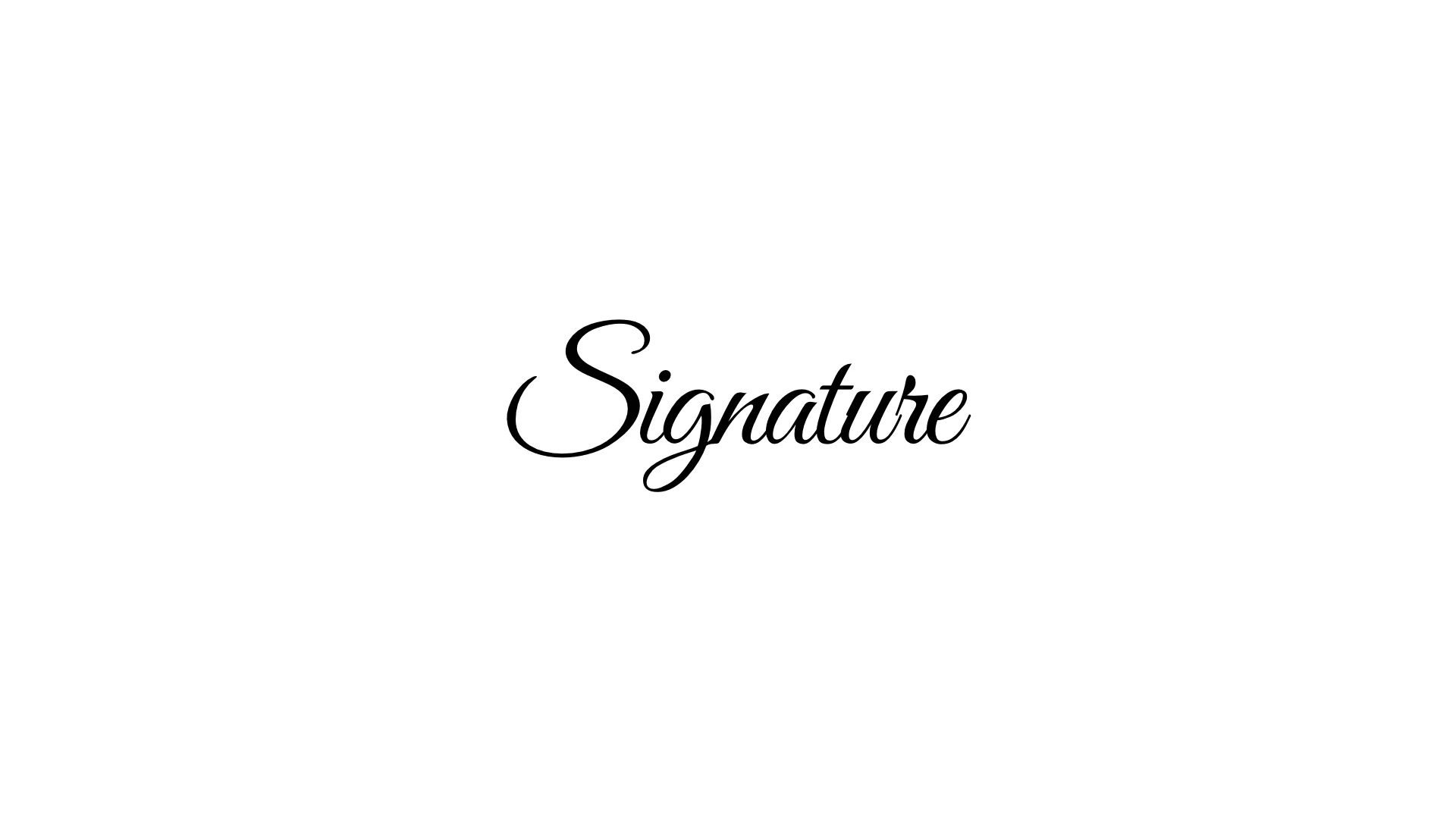
Elegant and flowing, Great Vibes is a formal script font with sweeping curves and a refined feel. It’s well-balanced and works beautifully in email signatures thanks to its clarity and graceful appearance.
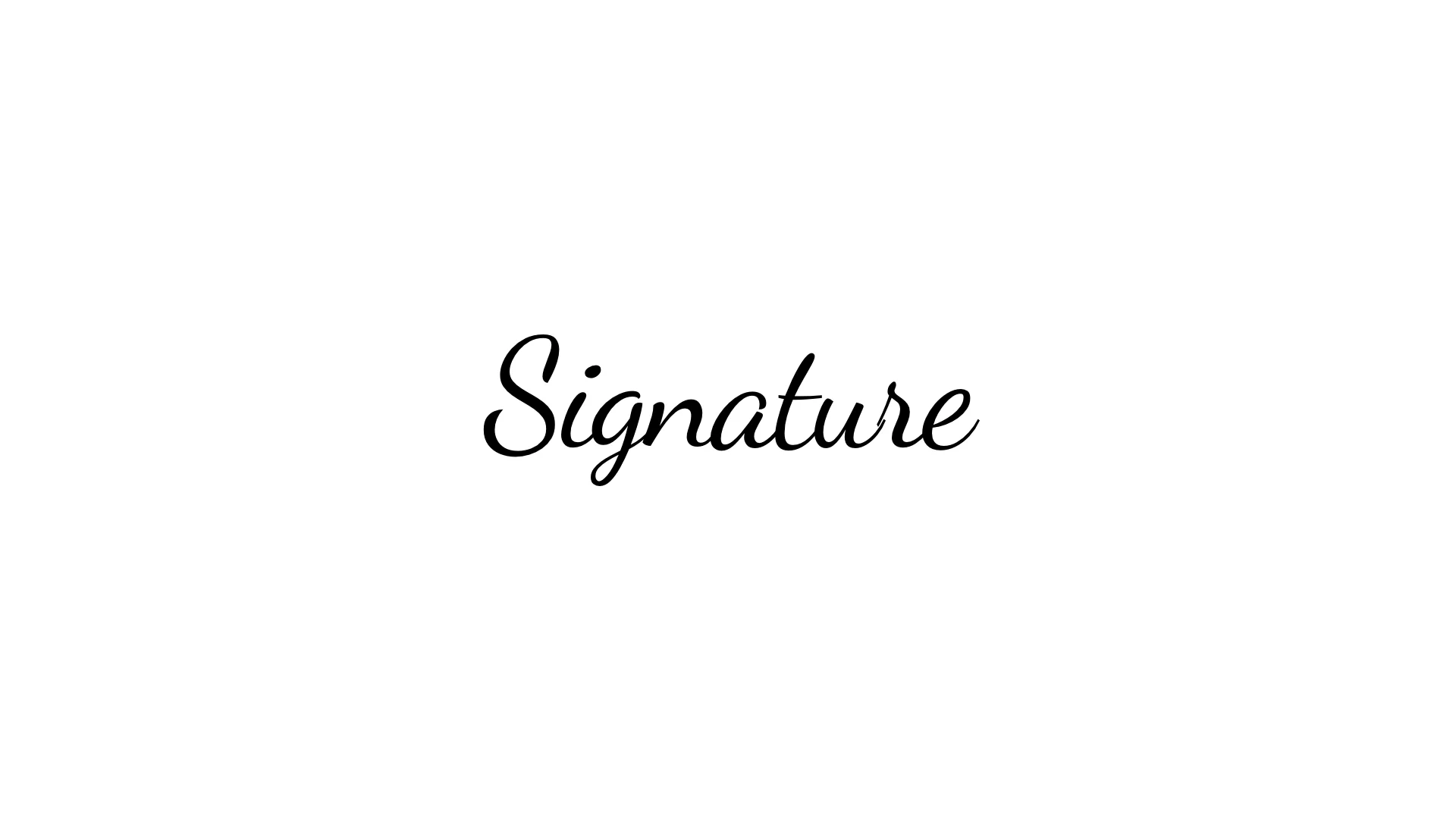
Dancing Script brings energy to your signature with its rounded forms and casual rhythm. Inspired by popular scripts of the 1950s, it feels nostalgic and expressive, without being too bold.
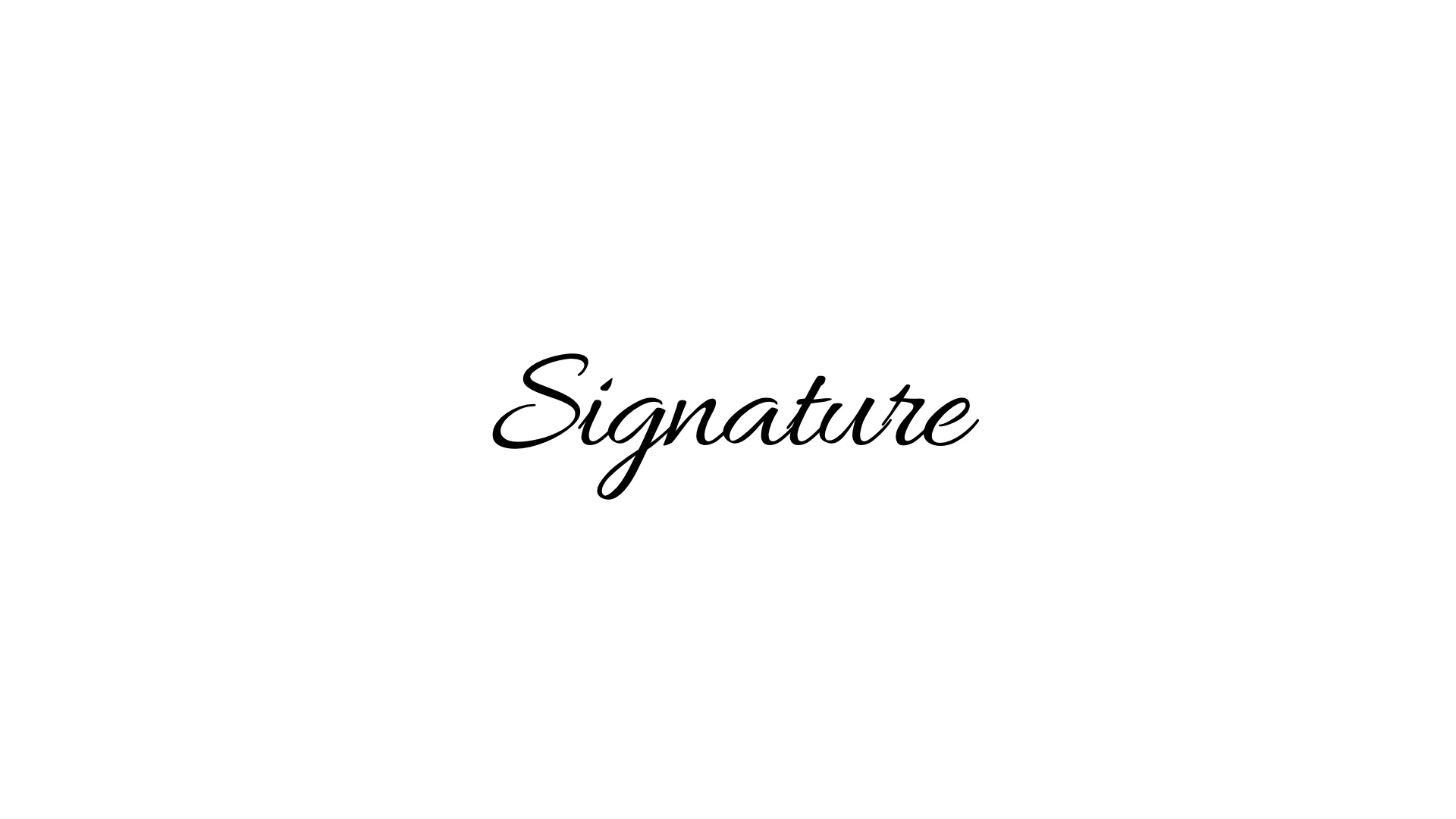
Allura offers a more delicate script with subtle, sweeping strokes. It’s clean and light, giving your email signature a calm and sophisticated look.
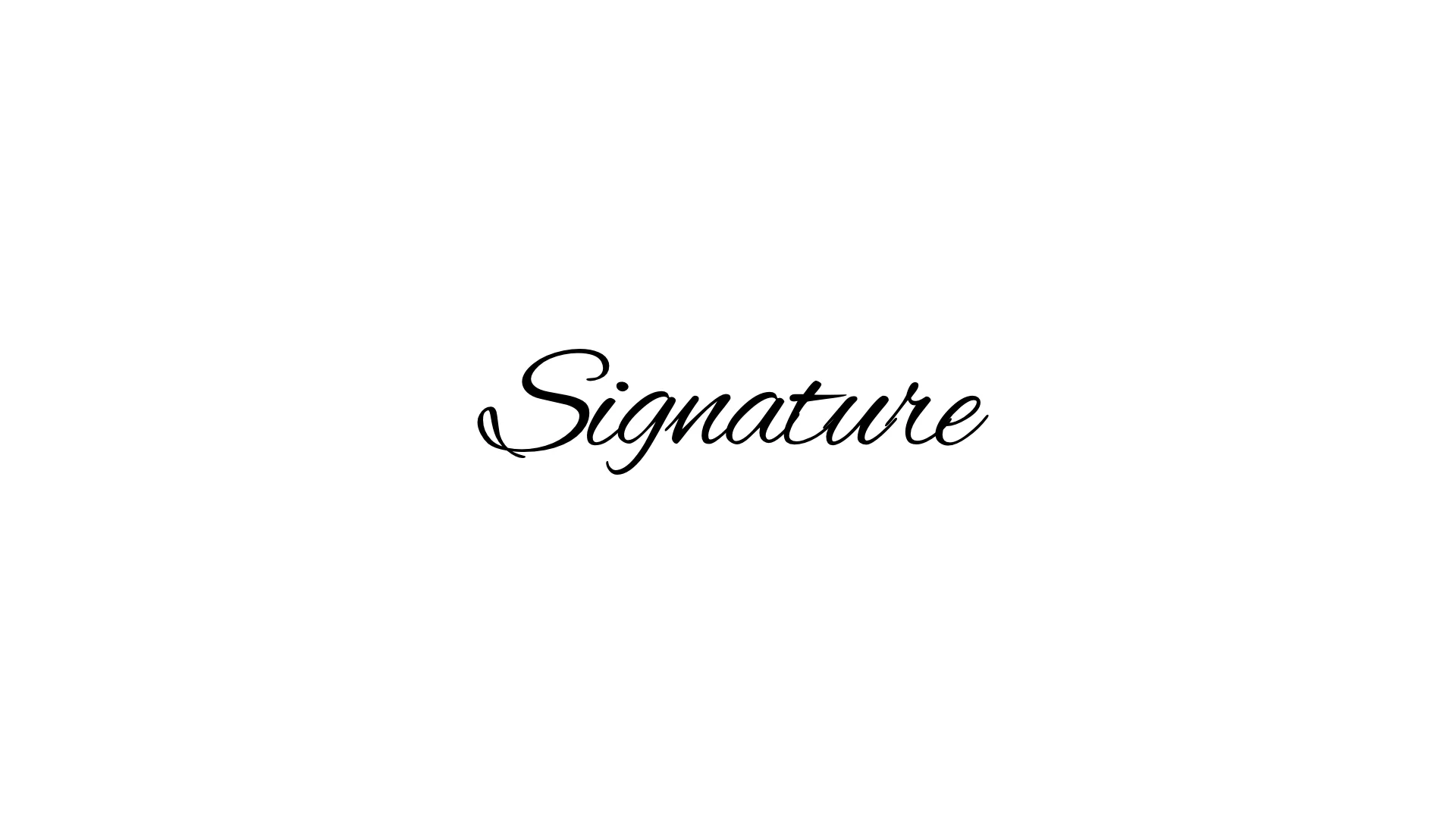
Alex Brush is a popular brush script font that is both elegant and readable. It offers a stylish cursive vibe that maintains great legibility, even in small sizes.
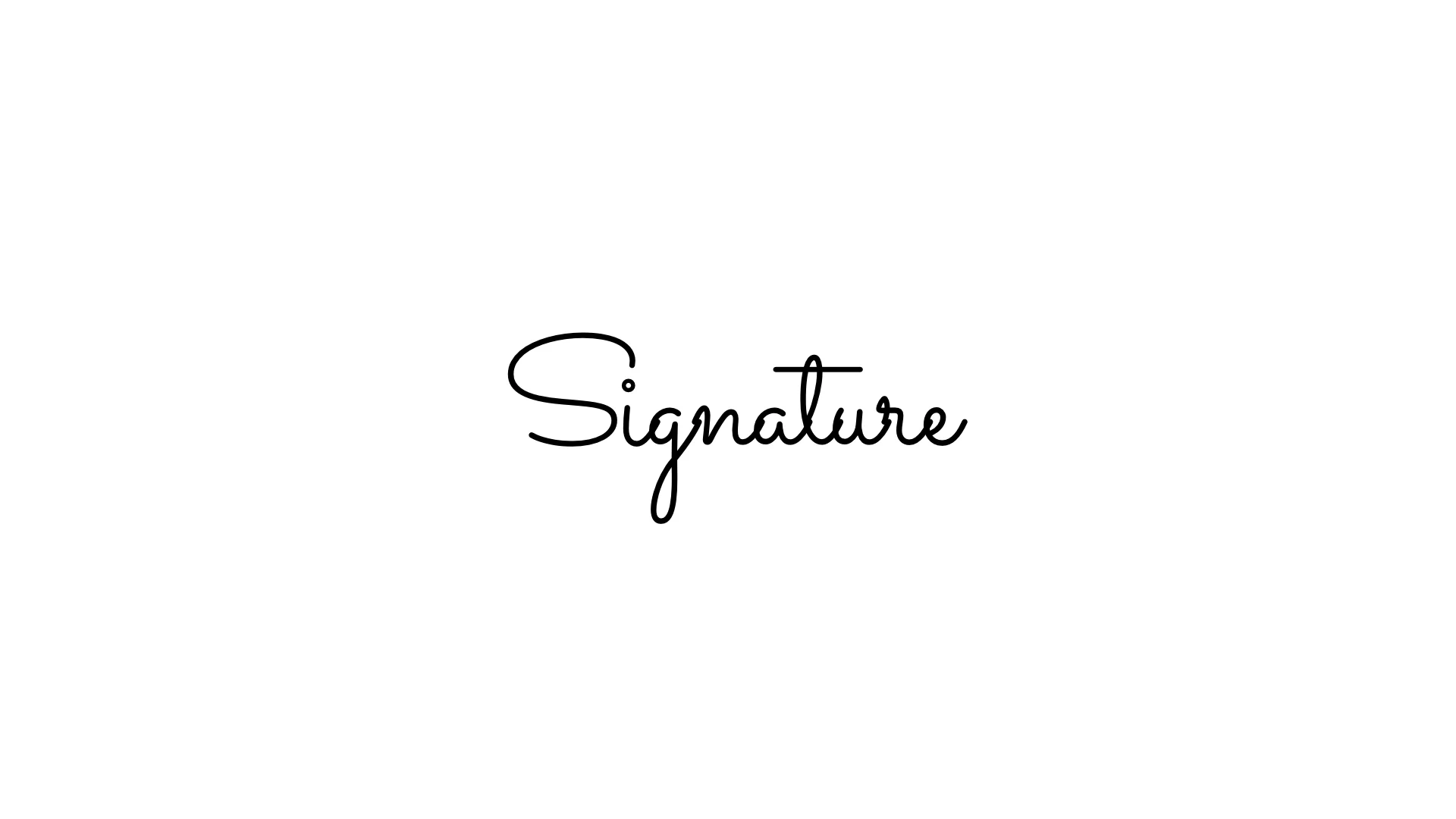
Inspired by mid-century hand lettering, Sacramento features mono-weight strokes and a retro feel. It’s lightweight but distinct, giving a classic handwritten look.
A high-end monoline script font that mimics the look of a signature penned with a fine marker or fountain pen. Sleek, confident, and smooth—Signatura is a go-to for modern luxury.
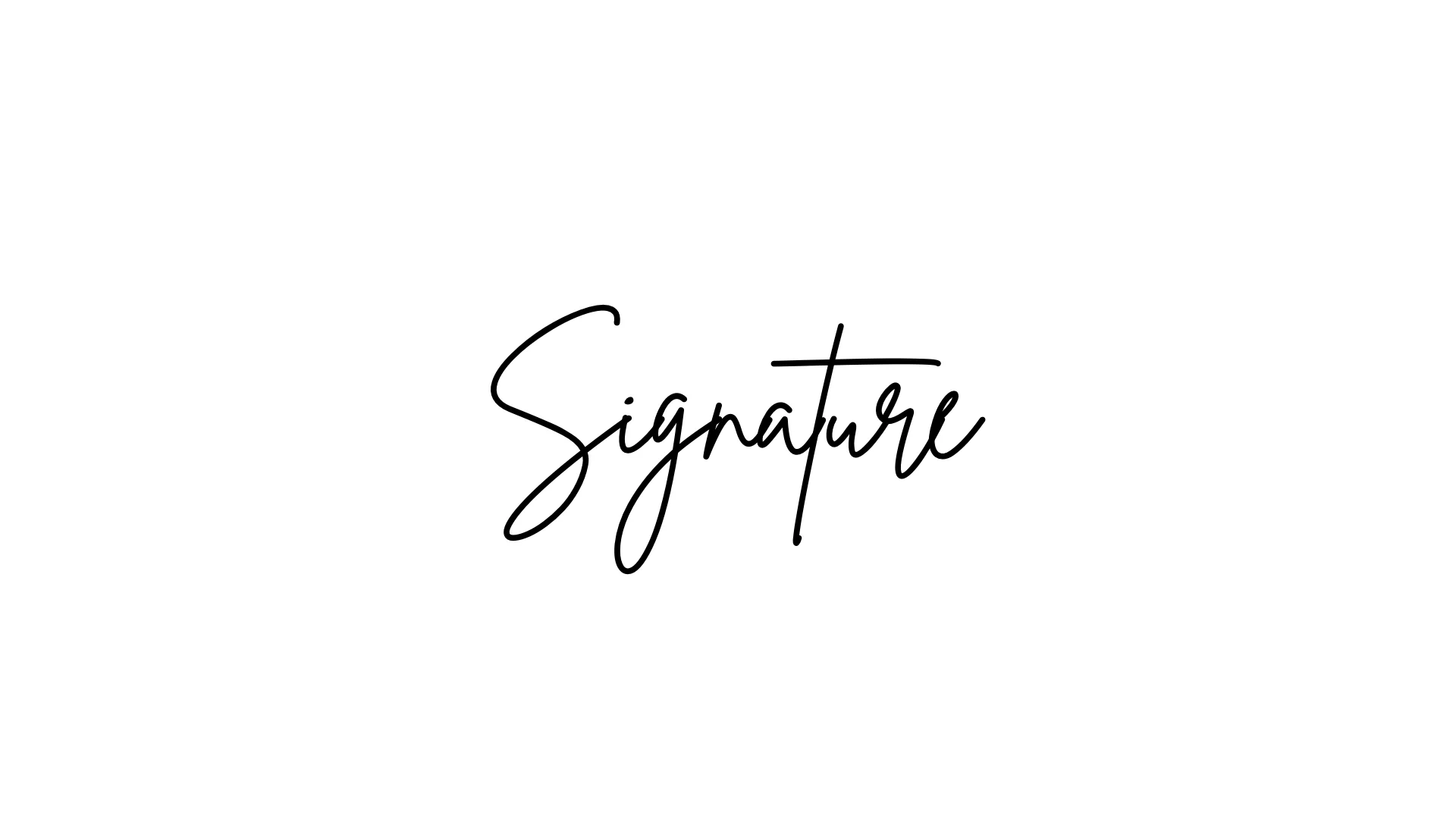
Brittany Signature is fashionable and dynamic. Its stylish curves make it stand out, especially when you want to add a personal logo-like finish to emails.
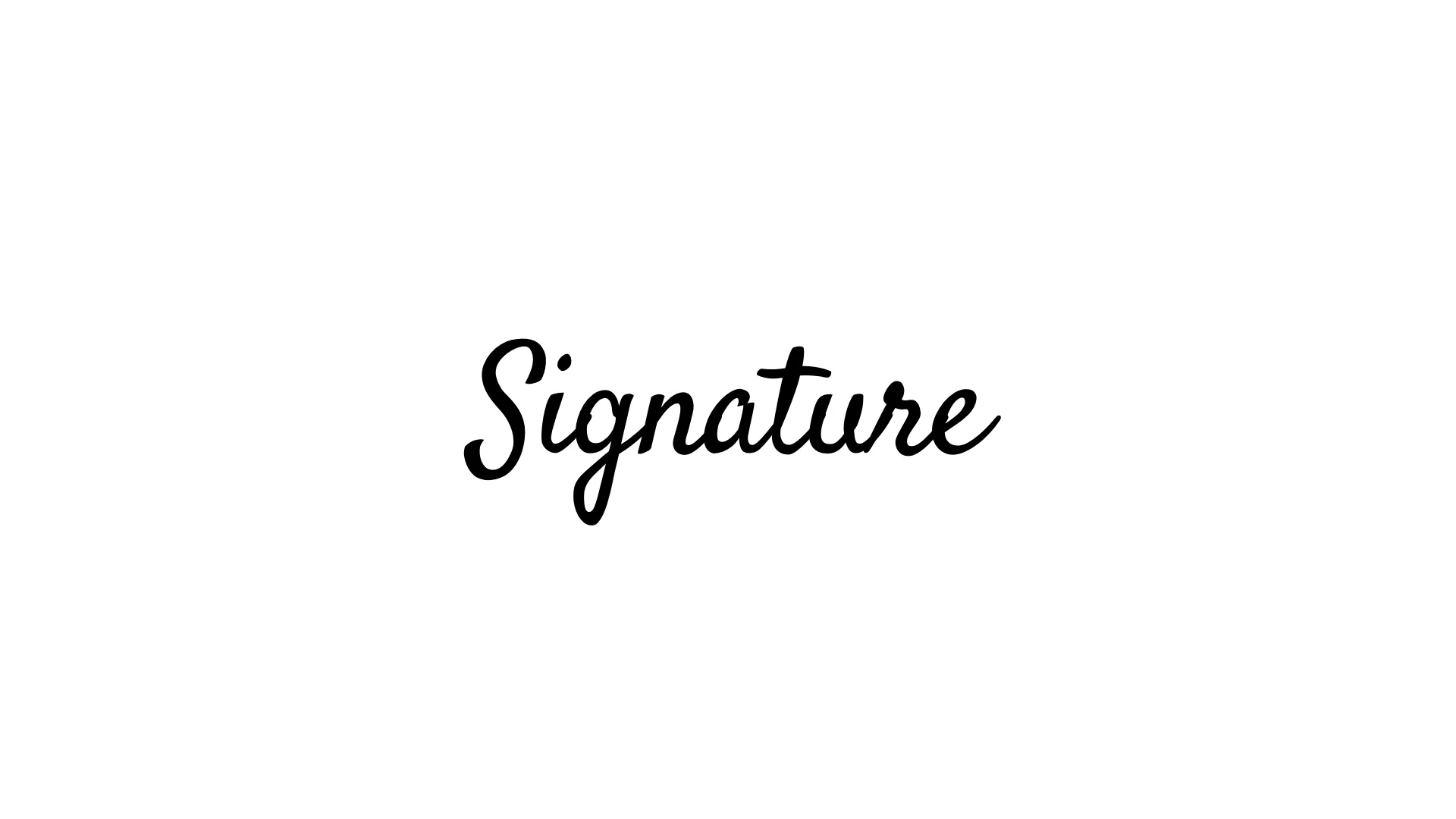
Satisfy has a bold presence with its sweeping curves and casual handwriting style. It adds personality without going overboard, perfect for light-hearted but professional communications.
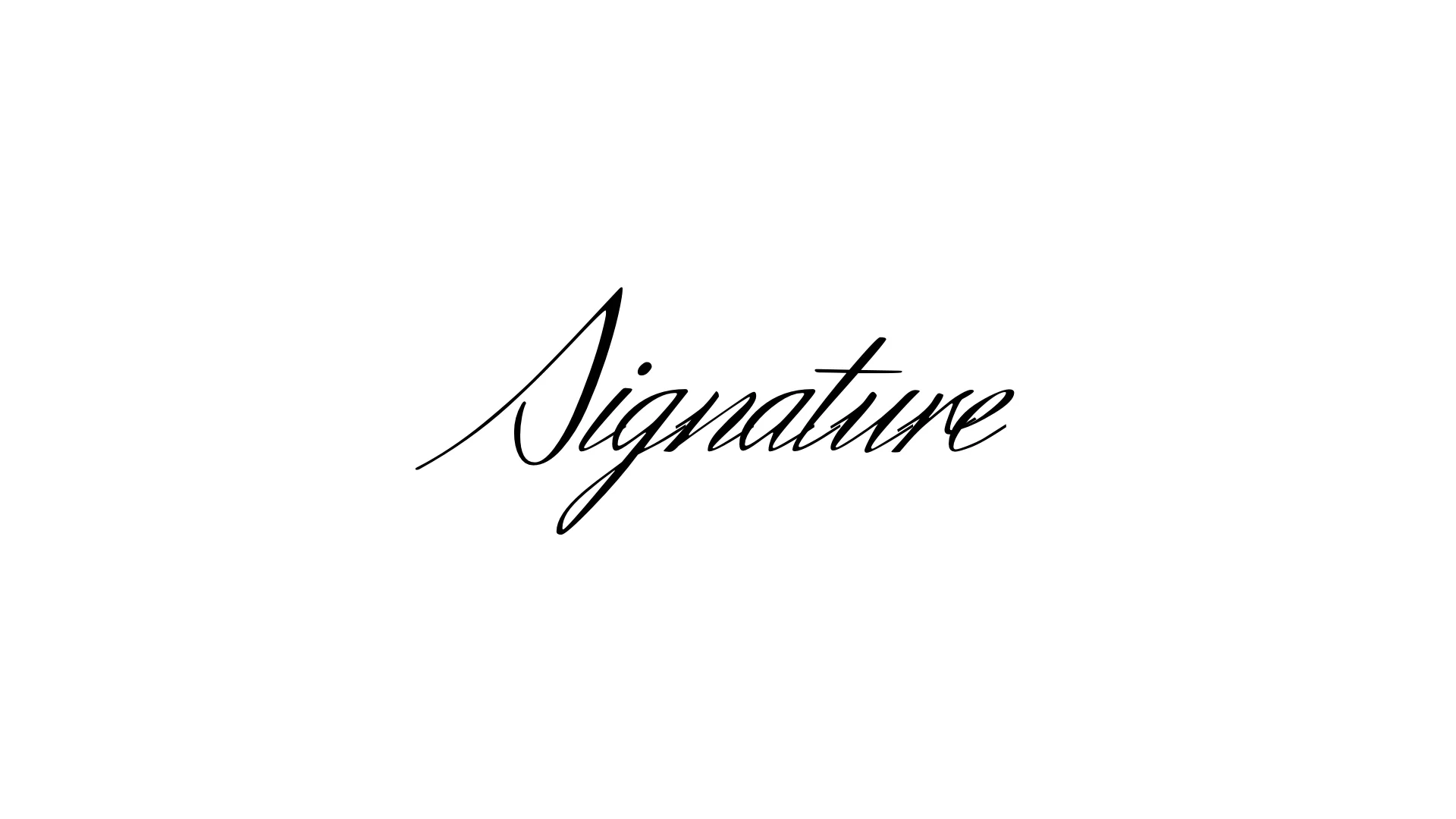
This is a dramatic, formal script font with old-world charm. Its ornate swashes make it perfect for artistic or romantic branding, but it should be used sparingly.
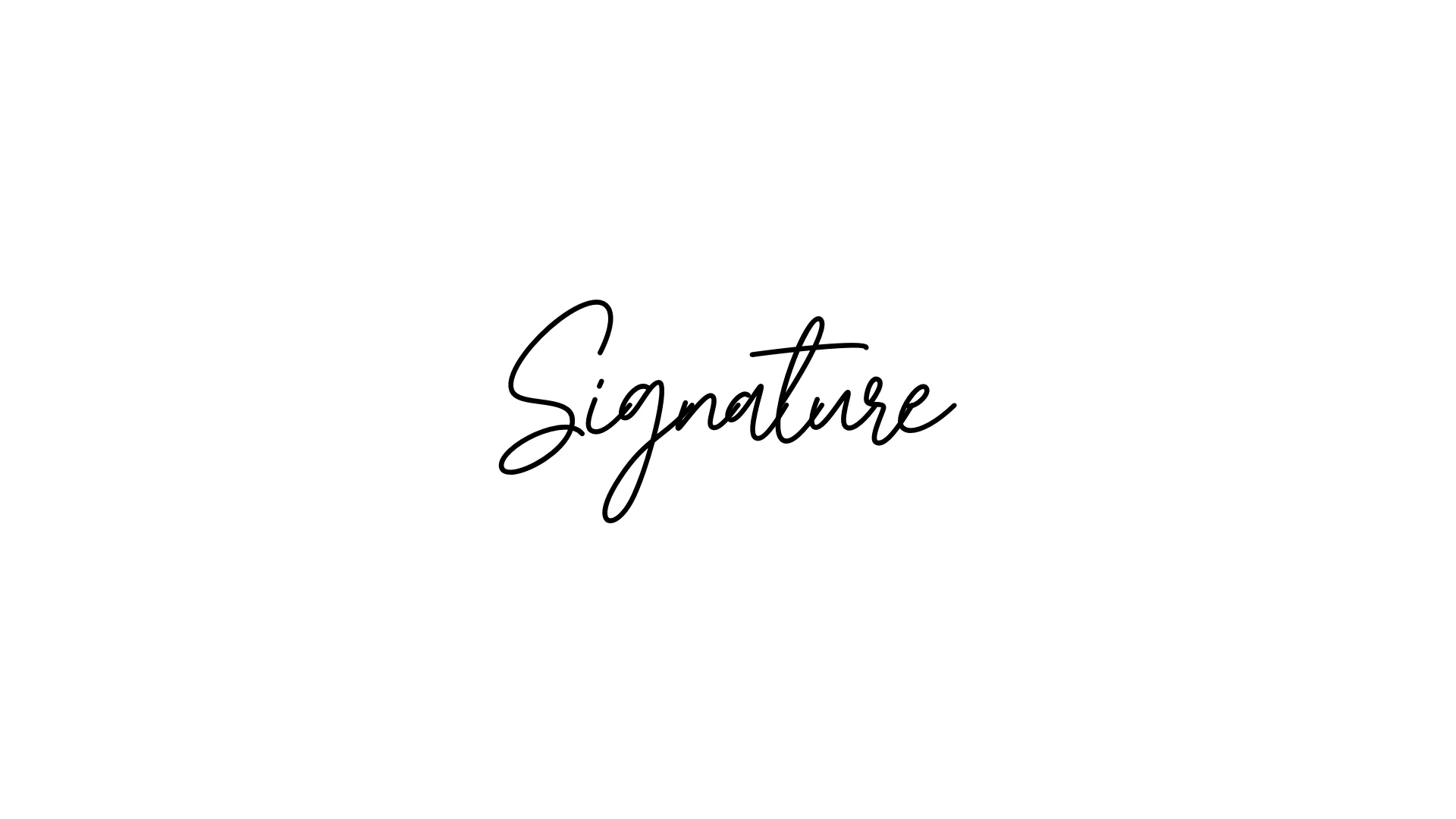
Modern and minimal, Madeline Signature mimics the refined strokes of a handwritten name. It’s polished and simple, perfect for anyone building a brand around their personal name.
Your email signature is often the last thing people see—so make it memorable. These fonts can add personality, polish, or professionalism, depending on what you want to say.
Let your font do the talking, and sign off with style.